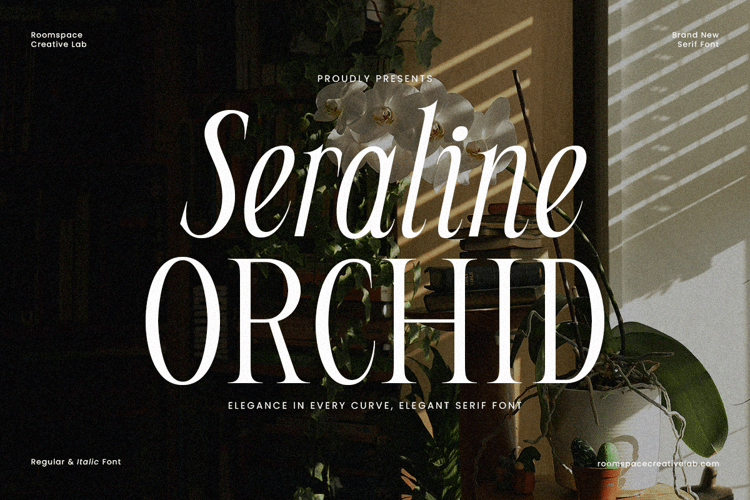
Seraline Orchid - Font
Seraline Orchid is a modern elegant serif font perfect for branding, fashion, and editorial design. Graceful, timeless, and luxurious — designed for creative professionals.